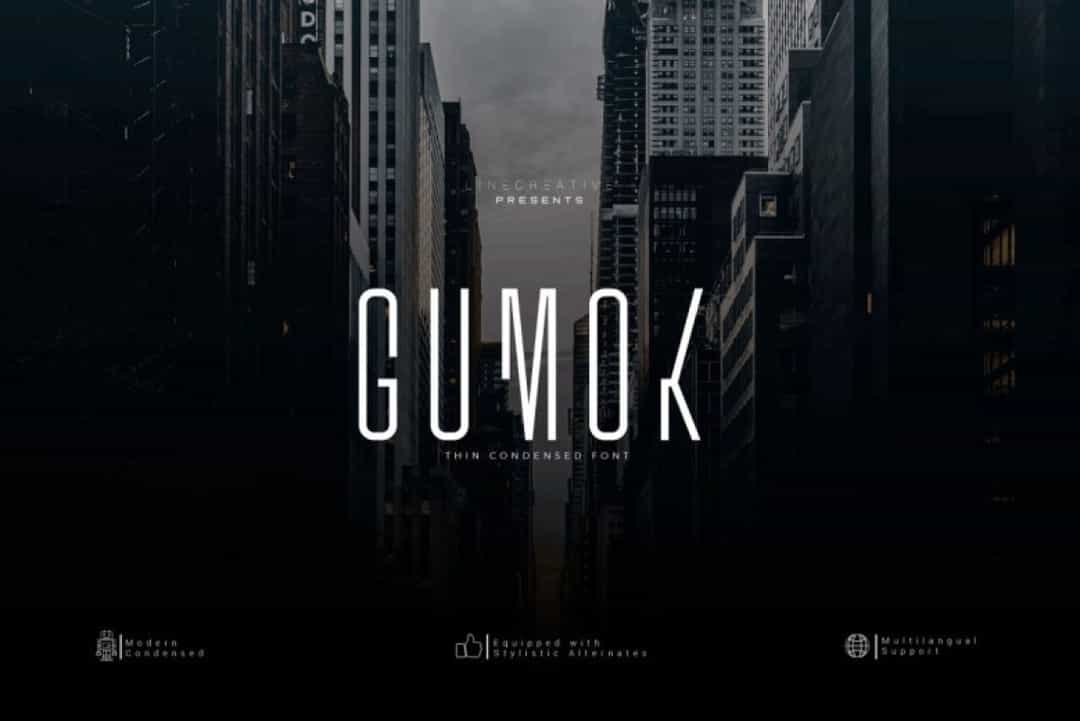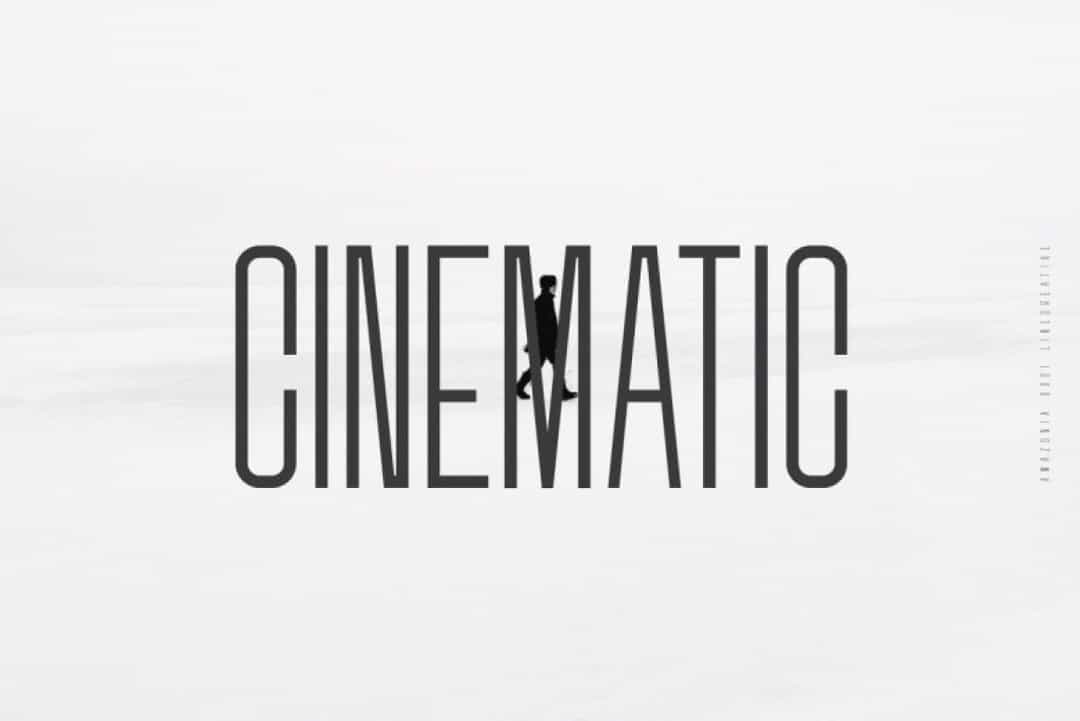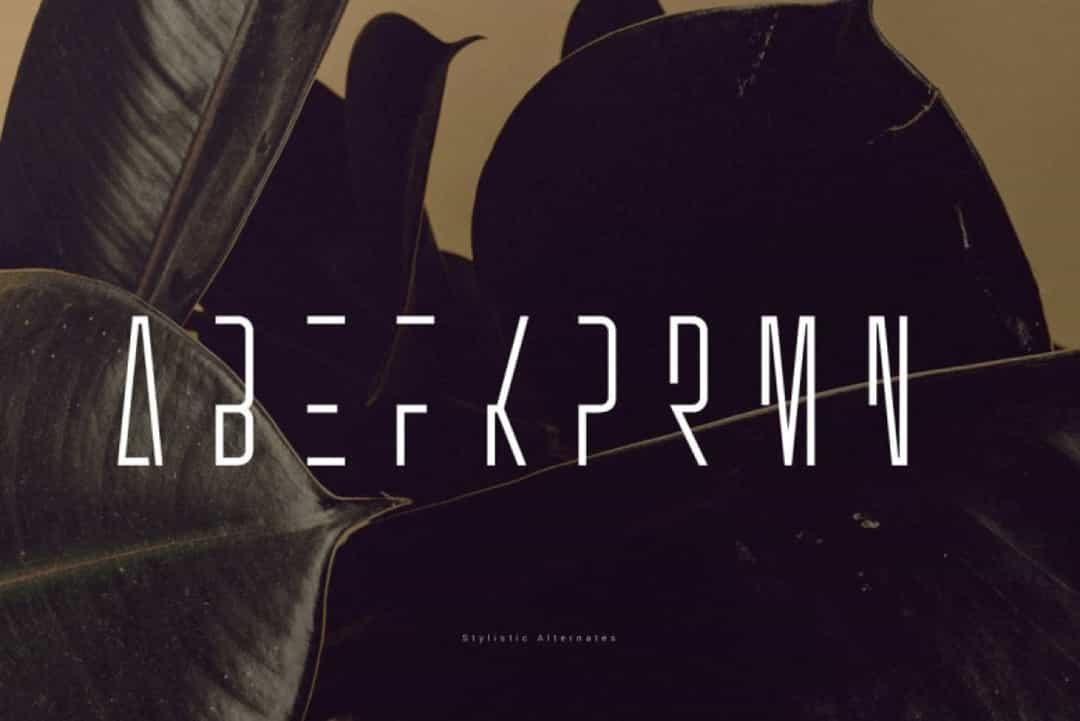
Gumok, a Super Condensed Sans Serif font and Minimalist character, is perfect for name cards, logos and magazine layouts as well as headers or large size artwork projects. Featuring sleek edges and smooth curvatures for an air of sophistication in your project.